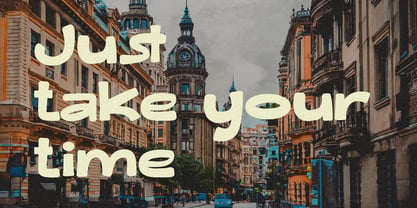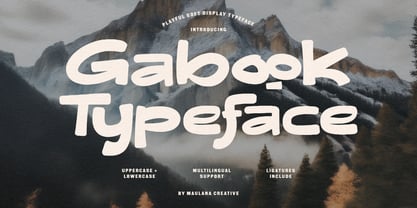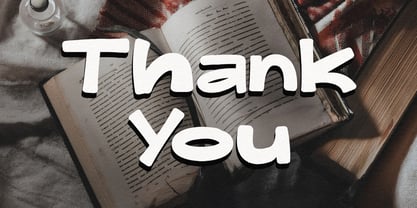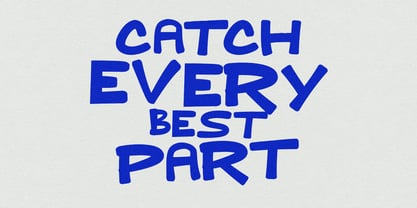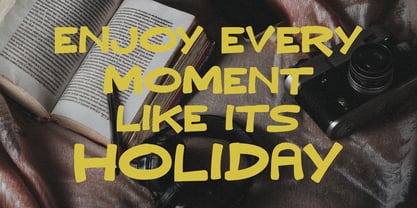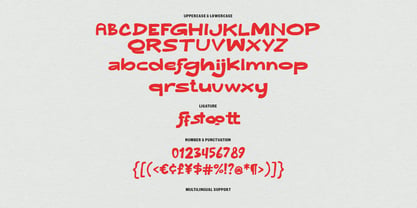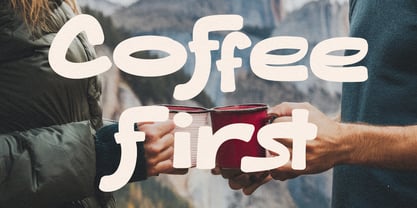
MC Gabook
by Maulana Creative
The MC Gabook Font Family was designed by Gilang Maulana and published by Maulana Creative. MC Gabook contains 1 styles. More about this family
Gabook is a creative display font featuring unique soft curves and a charming, playful aesthetic. Designed to bring a friendly and warm vibe to any creative project, this bold typography asset functions beautifully for headlines, logos, social media posts, packaging, branding materials, book titles, and poster designs. The package includes full uppercase and lowercase sets, standard numbers, punctuation, unique ligatures, and comprehensive multilingual support to elevate various design layouts.
Designers: Gilang Maulana
Foundry: Maulana Creative